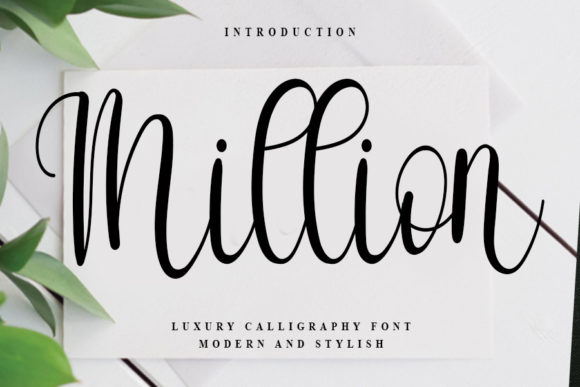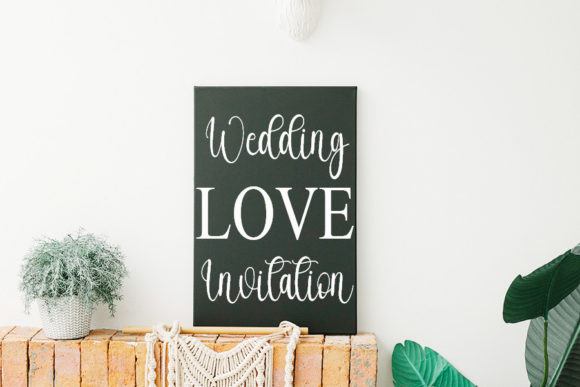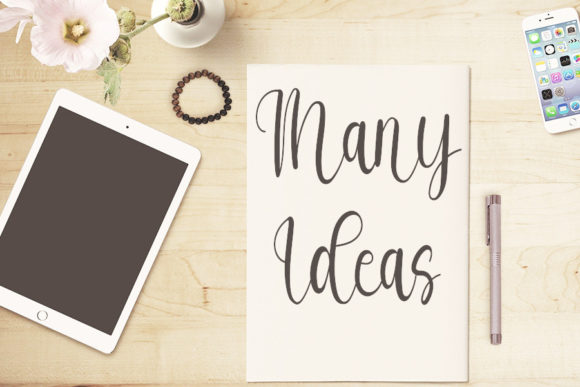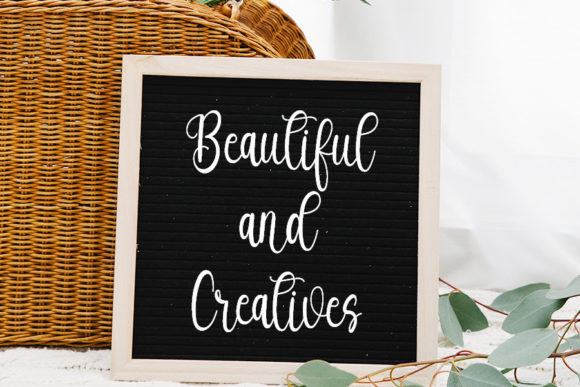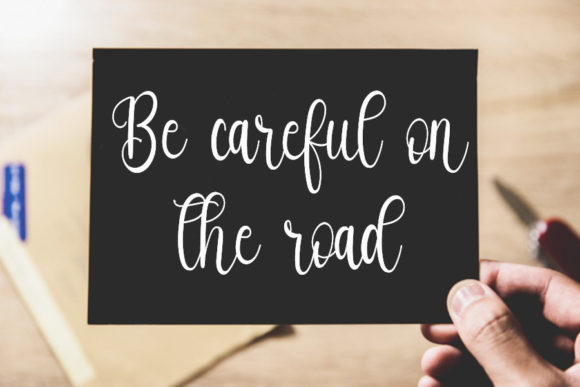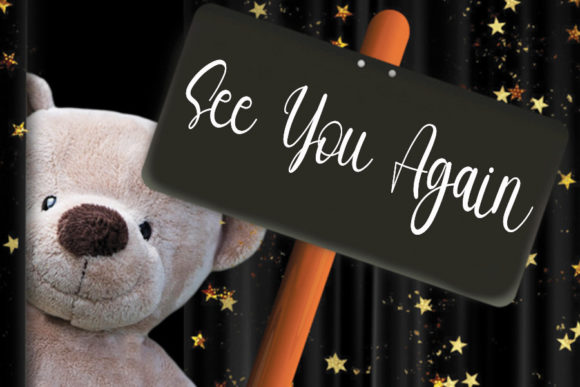
Million Font
About Million Font
Million feels equally charming and elegant. This handwritten font looks stunning on wedding invitations, thank you cards, quotes, greeting cards, logos, business cards, and any other design that requires a handwritten touch. In addition, by using this font, your design will look more attractive than others and make you even more excited.